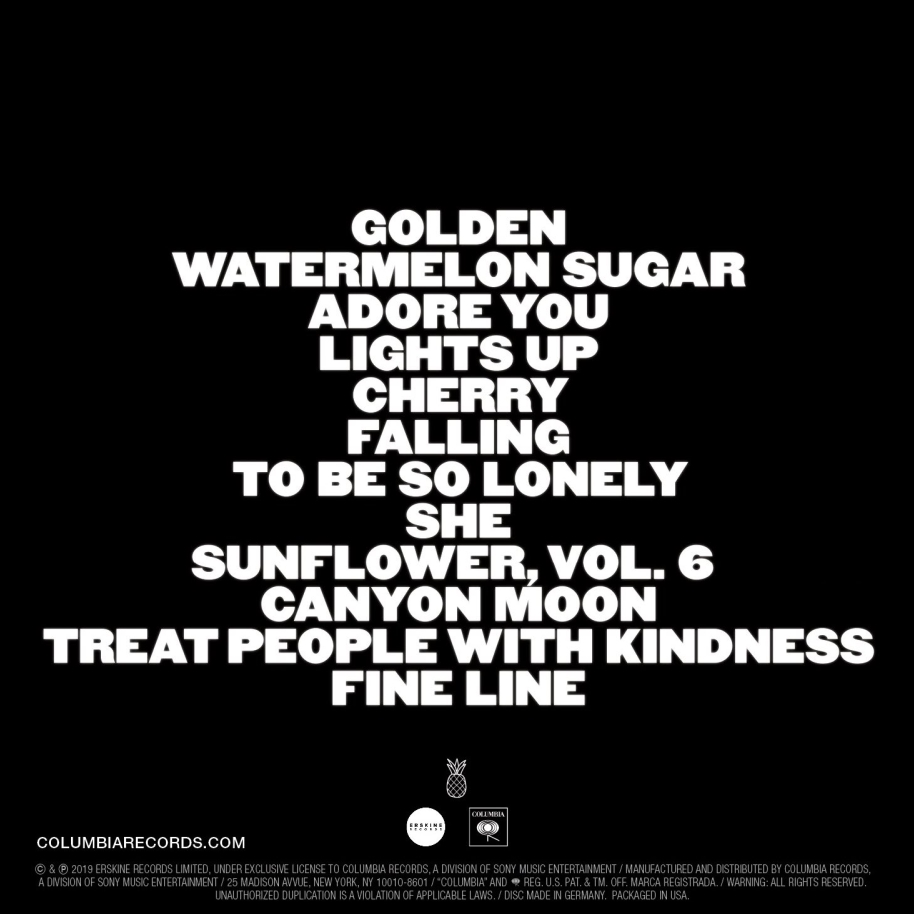
Fine Line (album) Font
Fonts in UseFine Line is the second studio album by English singer Harry Styles, released in 2019. The album features 12 tracks, including the hit singles "Watermelon Sugar" and "Adore You", and is characterized by its eclectic mix of pop, rock, and folk influences.
On the back cover of the album, the tracklist is displayed in Champion Gothic Heavyweight, a sans-serif font designed by Jonathan Hoefler that draws inspiration from wood-type typography.